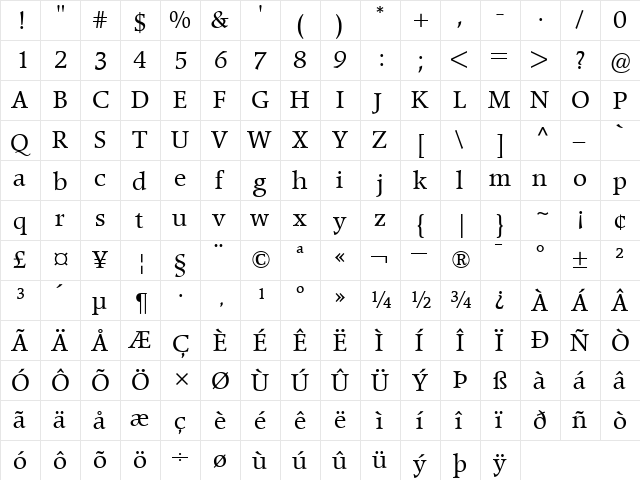
Poppl-PontifexBE Roman
Design Context for Poppl-PontifexBE Typeface
Poppl-PontifexBE offers clean, dependable letterforms without strong stylistic allegiance, making it a practical choice for designers who need flexibility.